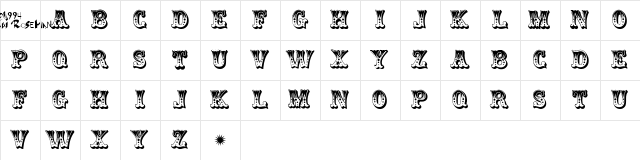
Circus Regular
Circus Family
Circus Regular
Design Context for Circus
Circus is a composed and adaptable typeface that performs quietly and consistently across a wide range of design contexts.